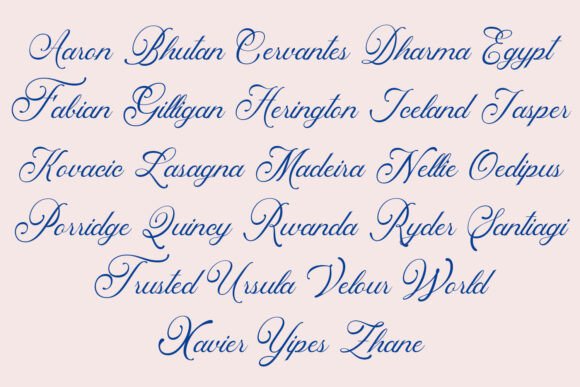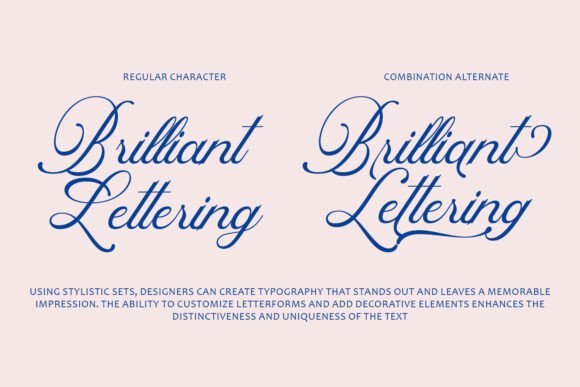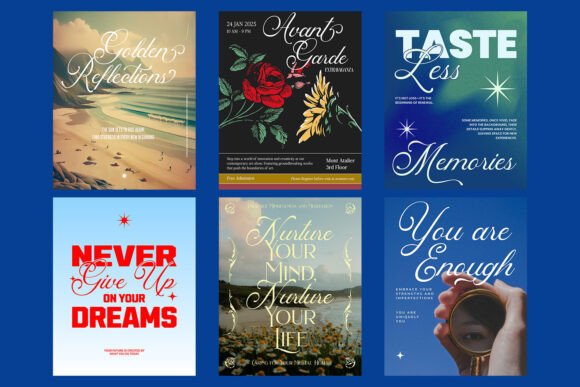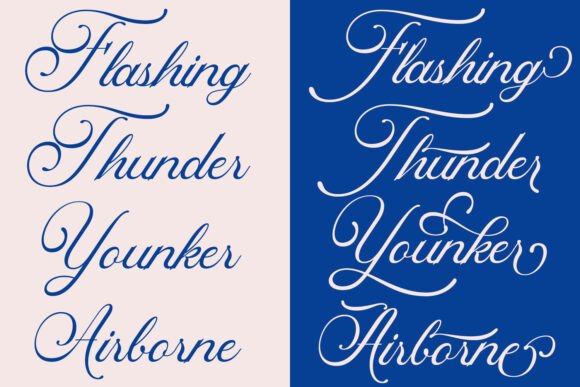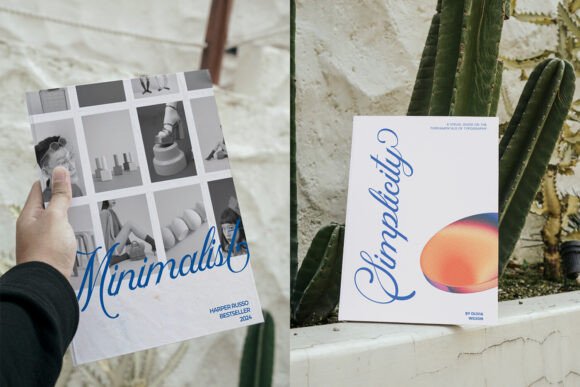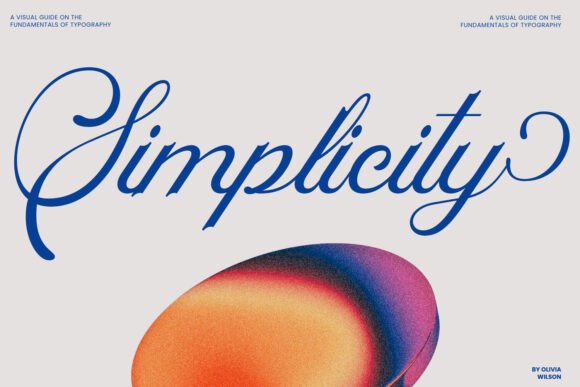
Introducing Flourishing Font: Elevate Your Designs with Timeless Elegance
Are you searching for a typeface that embodies sophistication, refinement, and a touch of luxury? Look no further than Flourishing Font, a stunning script font designed to add a dash of elegance to any project. With its fluid, handcrafted strokes and graceful curves, this beautiful font is perfect for designers and crafters seeking to create high-end designs that exude exclusivity and charm.
The Essence of Elegance
Flourishing Font is a masterclass in typographic design, boasting a unique blend of readability and artistic flair. Its delicate swashes and ligatures dance across the page, creating a sense of movement and fluidity that is both captivating and sophisticated. Whether used for headlines, logos, or decorative accents, this font is sure to elevate your designs to new heights of refinement and poise.
Perfect for Luxury Projects
So, what makes Flourishing Font the ideal choice for luxury projects? For starters, its elegant script style is reminiscent of traditional calligraphy, evoking a sense of history and tradition. Yet, its modern sensibilities ensure that it remains fresh and relevant, perfect for contemporary designs that demand a touch of classic sophistication. From wedding invitations and luxury branding to high-end packaging and editorial design, this font is the perfect tool for creating designs that exude exclusivity and refinement.
Key Features of Flourishing Font
- Fluid, handcrafted strokes: Each letterform has been carefully crafted to create a sense of fluidity and movement, giving the font a dynamic, organic feel.
- Graceful curves: The font’s gentle curves and rounded edges add to its elegance and charm, creating a sense of softness and approachability.
- Delicate swashes and ligatures: The font’s swashes and ligatures add a touch of sophistication and flair, perfect for creating decorative accents and headlines.
- Readability: Despite its elegant style, Flourishing Font remains highly readable, making it perfect for body text and captions.
Design Inspiration: How to Use Flourishing Font
So, how can you use Flourishing Font to elevate your designs? Here are a few ideas to get you started:
- Wedding Invitations: Add a touch of romance and sophistication to your wedding invitations with Flourishing Font’s elegant script style.
- Luxury Branding: Use Flourishing Font to create a high-end brand identity that exudes exclusivity and refinement.
- High-End Packaging: Elevate your packaging designs with Flourishing Font’s sophisticated style, perfect for luxury products and premium brands.
- Editorial Design: Add a touch of elegance to your editorial designs, including magazines, newspapers, and books, with Flourishing Font’s classic script style.
In conclusion, Flourishing Font is a truly exceptional typeface that embodies the very essence of elegance and sophistication. With its fluid, handcrafted strokes, graceful curves, and delicate swashes and ligatures, this font is the perfect tool for designers and crafters seeking to create high-end designs that exude exclusivity and refinement. Whether used for wedding invitations, luxury branding, high-end packaging, or editorial design, Flourishing Font is sure to elevate your designs to new heights of timeless elegance.